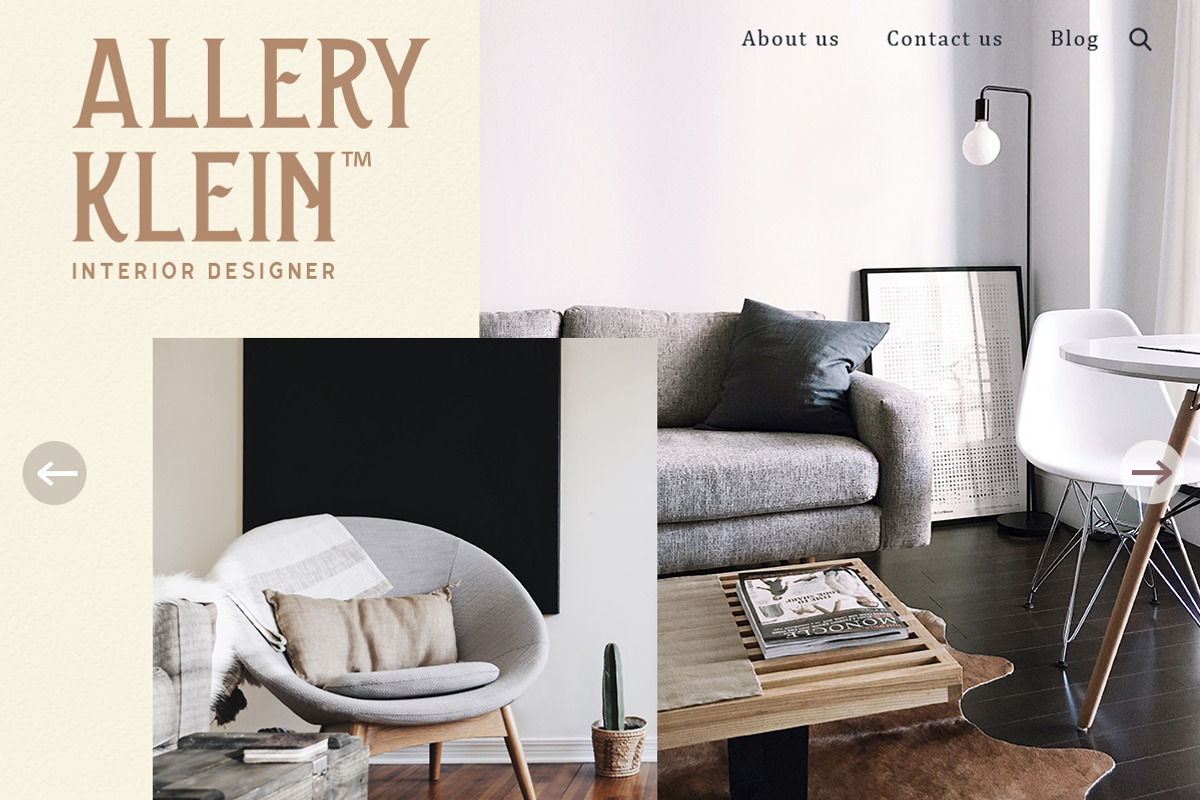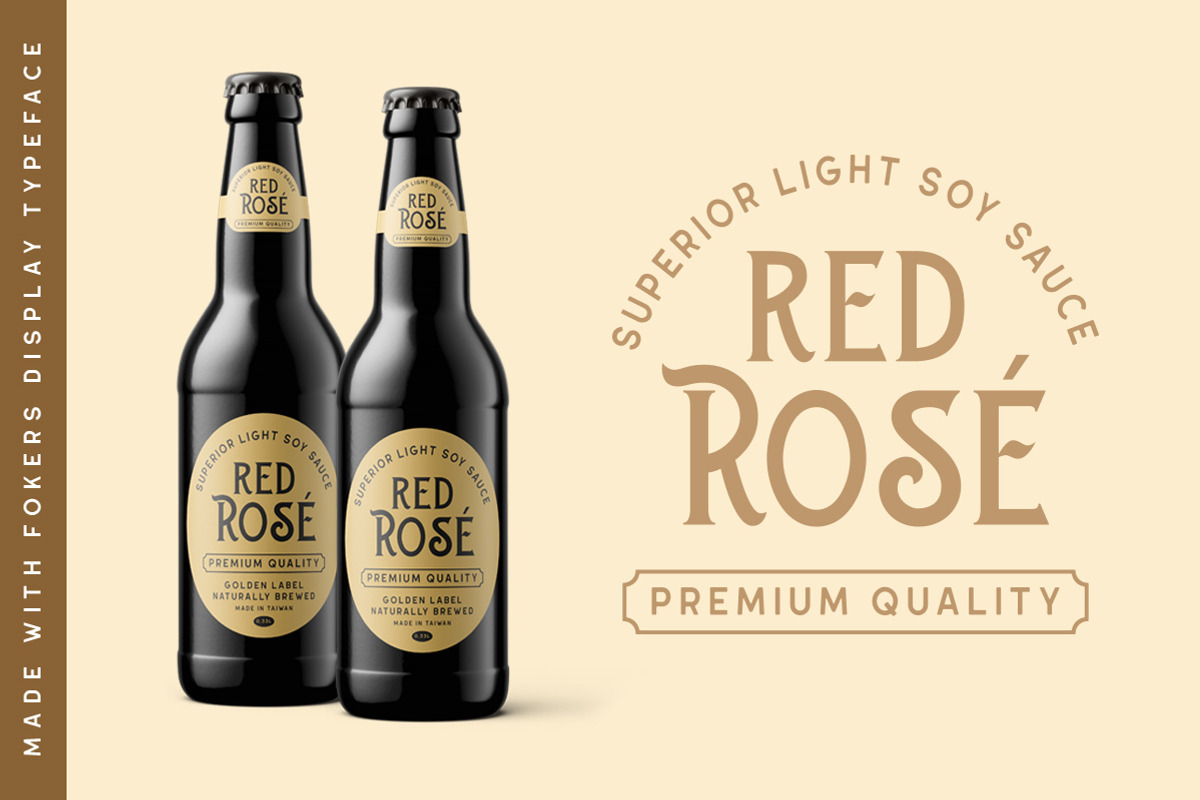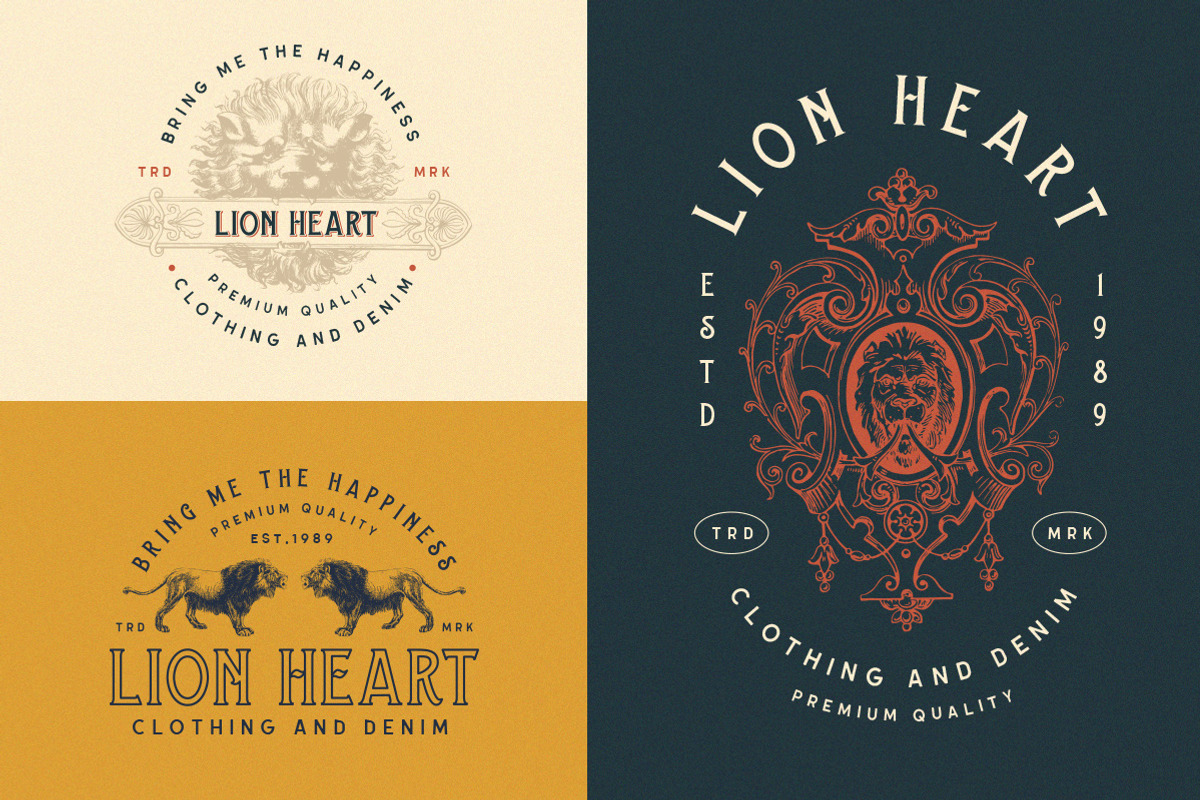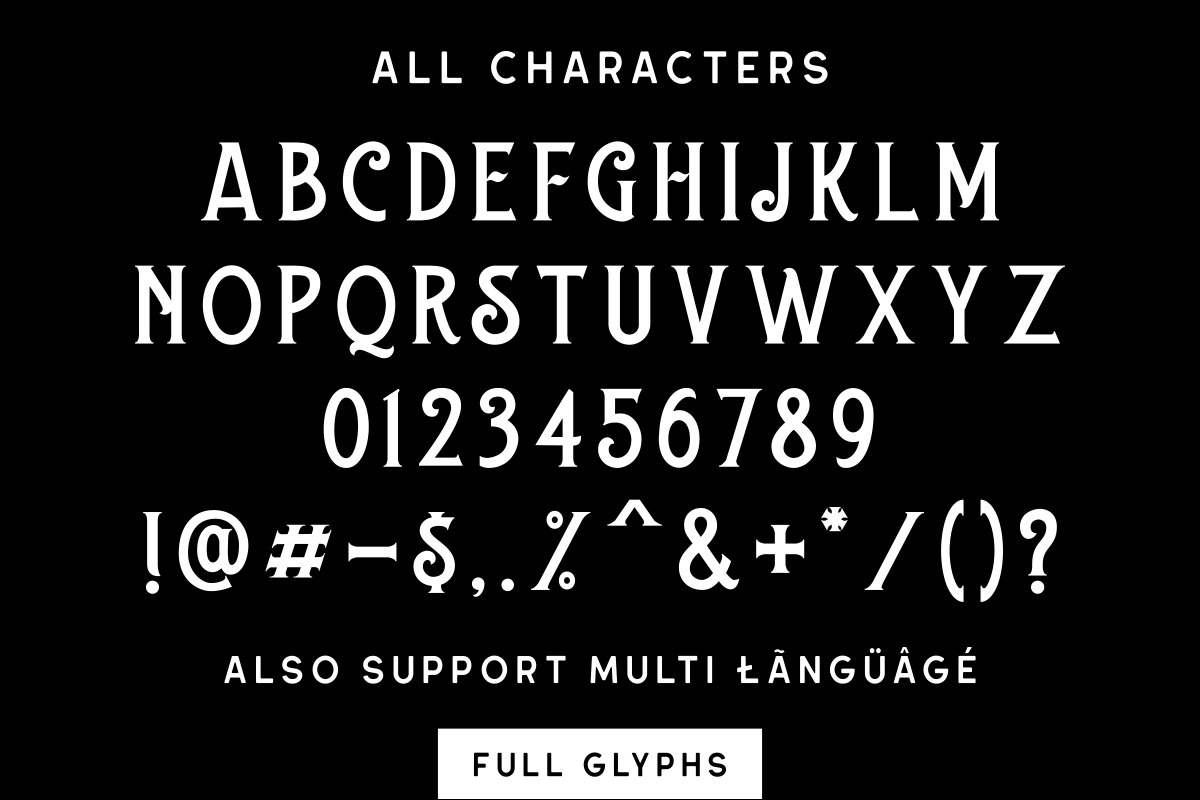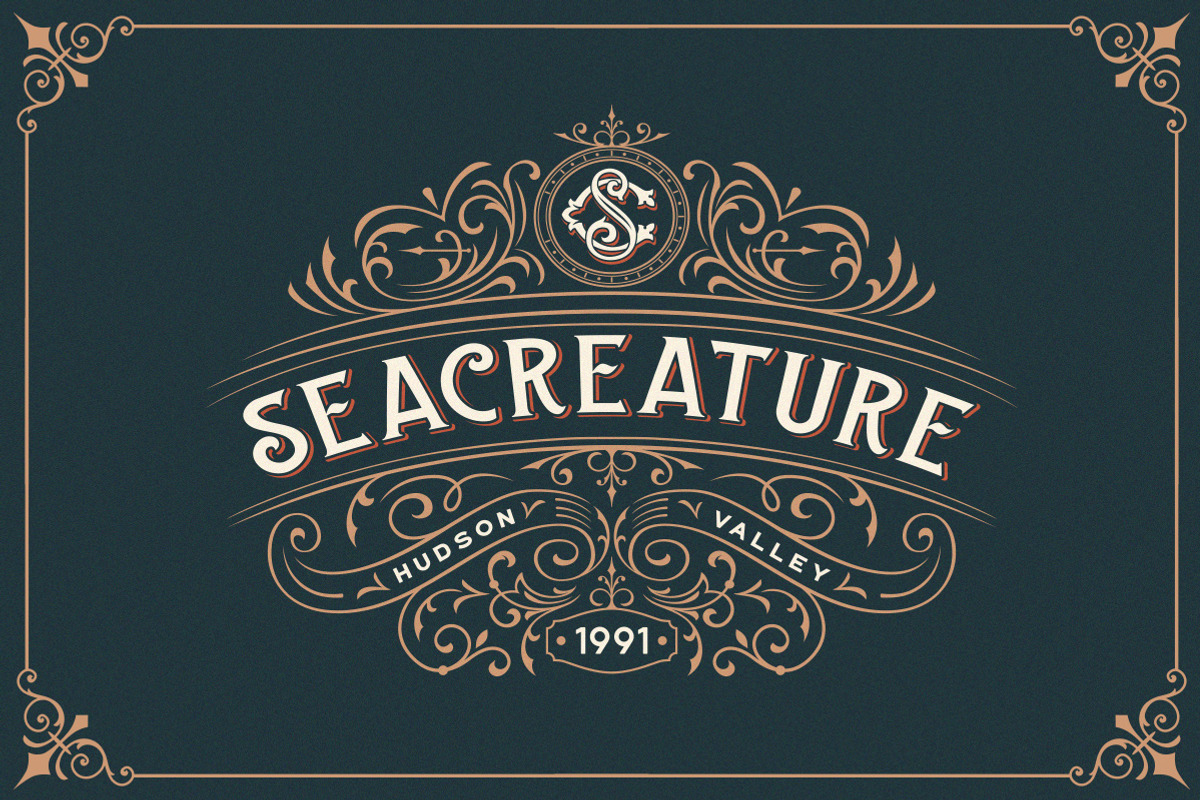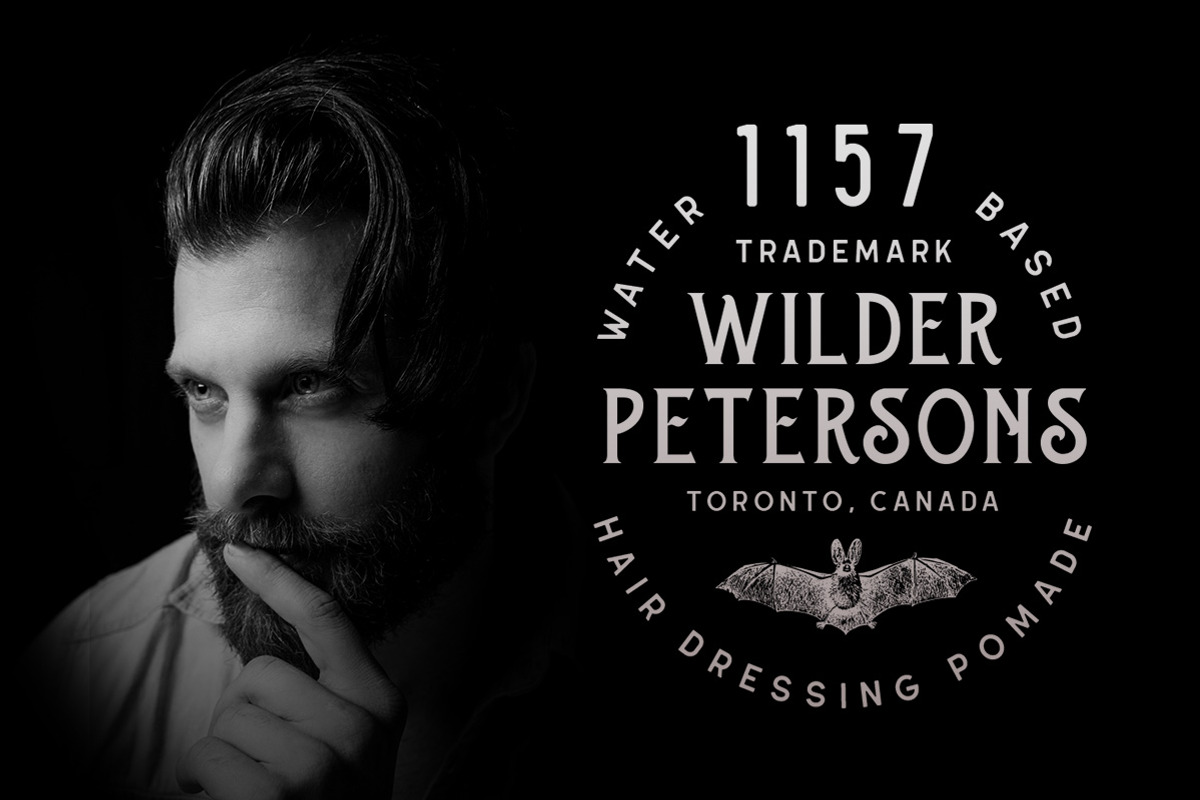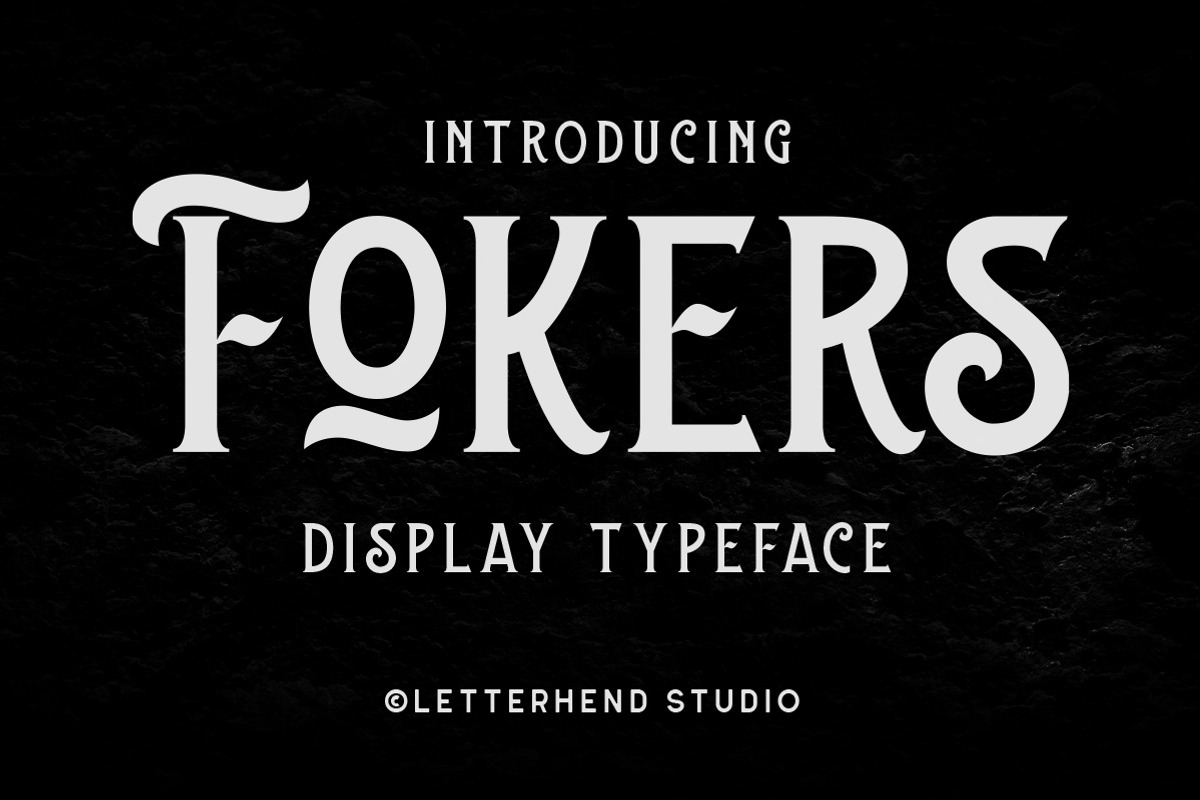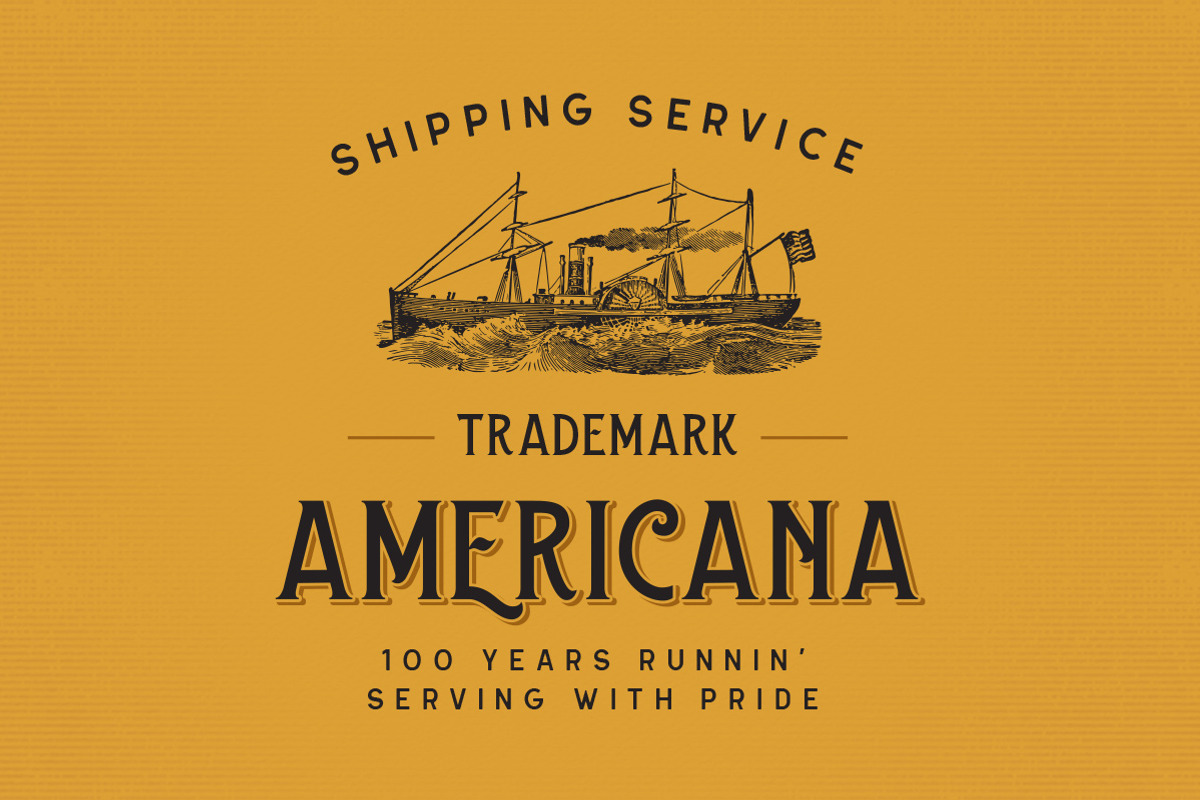
Fokers - Display Typeface
Introducing, Fokers. A display typeface with classy and luxury look! They works perfect for you who needs a typeface for headline, logotype, apparel, invitation, branding, packaging, advertising etc. This typeface is comes in uppercase, lowercase, punctuation, symbols, numerals, stylistic set alternate, ligatures, etc also support multilingual.